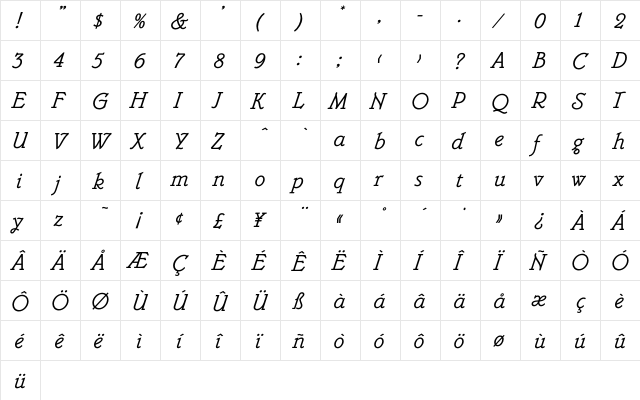
Belwe mono Regular
Design Context for Belwe mono Typeface
Belwe mono brings the precise, column-aligned rhythm of monospaced typography to designs that value technical clarity and systematic order.
A natural fit for code editors, technical documentation, developer-focused branding, and terminal-inspired UI.
Originally released in 1988, this typeface is available in OpenType (OTF) format.
Pro Tip: Pair Belwe mono with a proportional sans for UI contexts where code-style labels and regular body copy need to coexist.